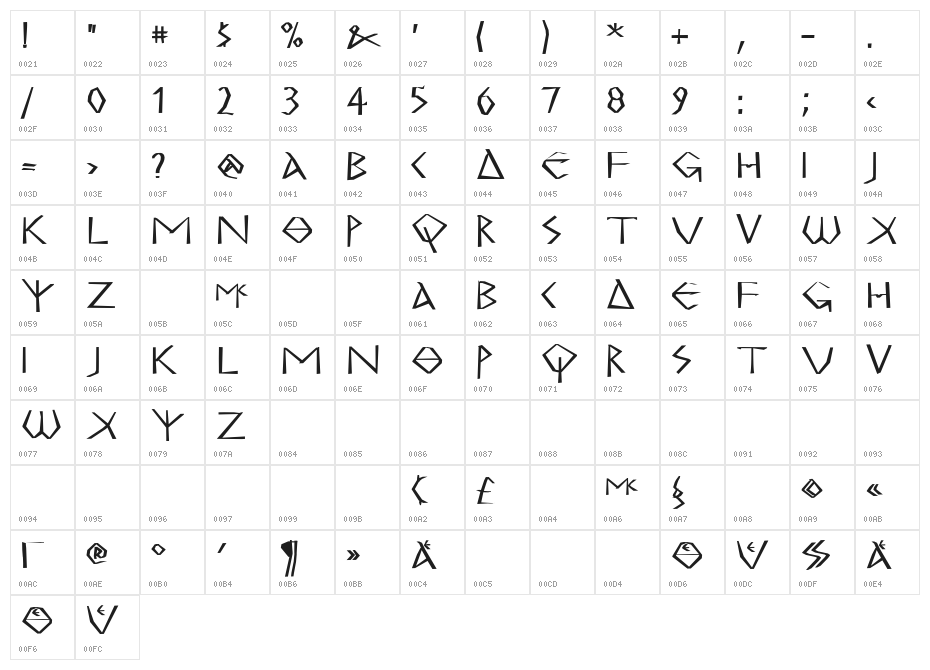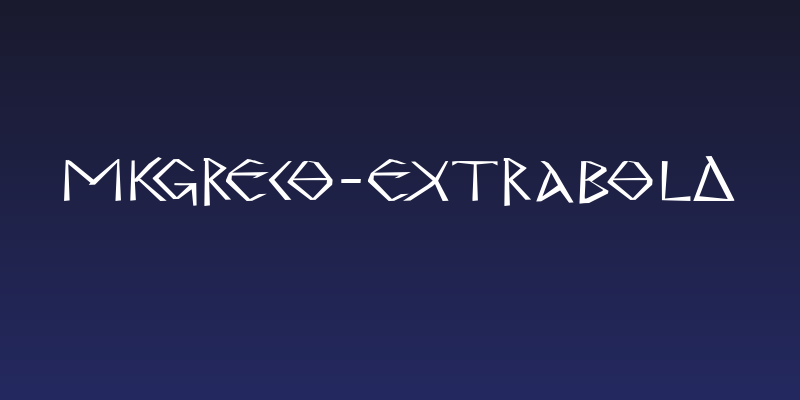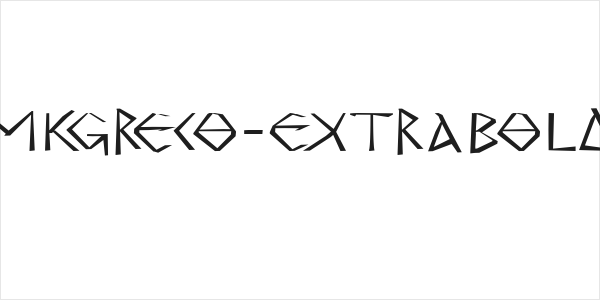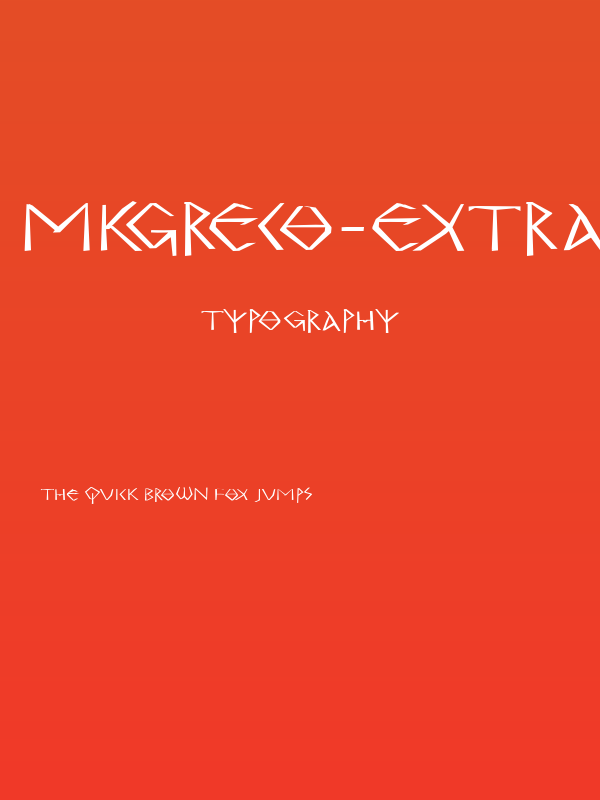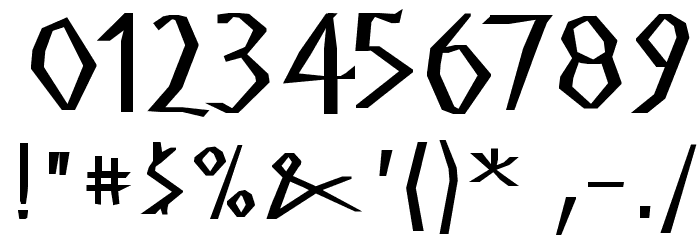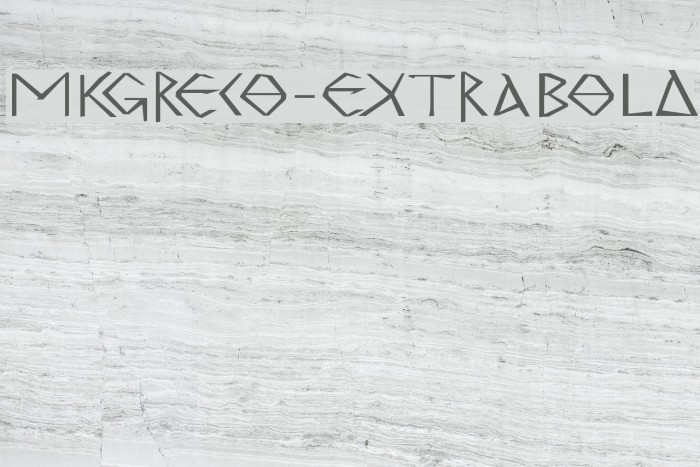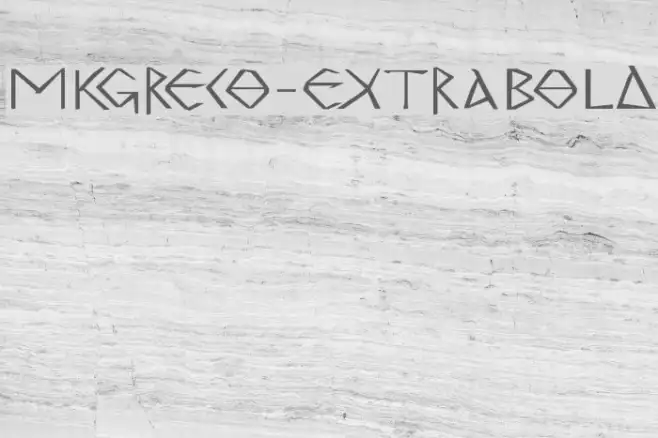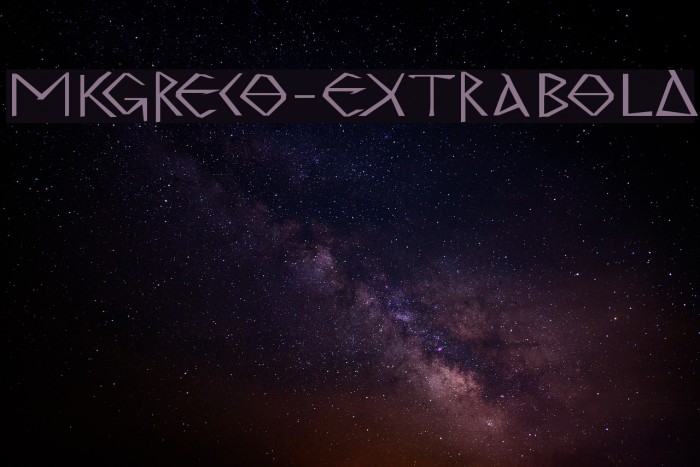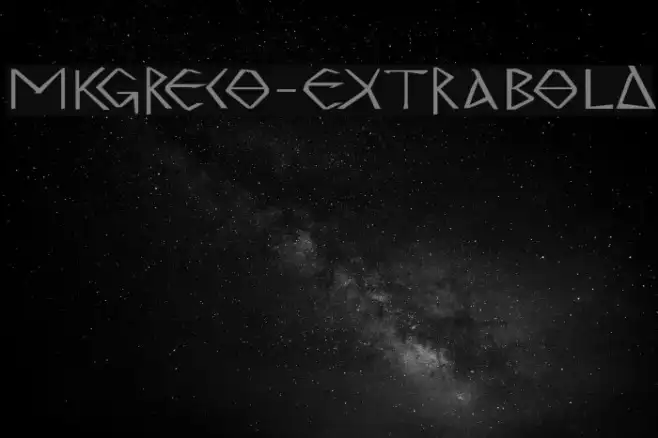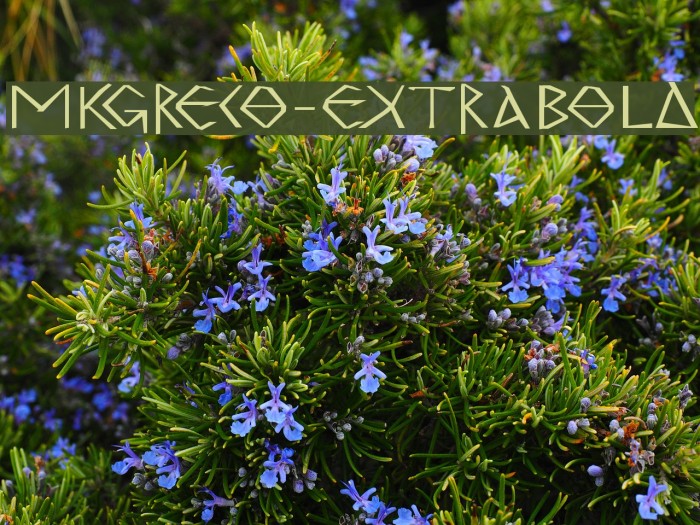
MKGreco-ExtraBold Font
MKGreco-ExtraBold Description
This font features a bold and angular design, reminiscent of ancient Greek inscriptions. The characters are constructed with sharp, geometric lines and triangular forms, giving it a distinct and striking appearance. The uppercase and lowercase letters maintain a consistent style, with a strong emphasis on diagonal strokes and pointed edges. The numerals and special characters follow the same design principles, ensuring uniformity across the typeface. This font's unique aesthetic makes it suitable for projects that require a historical or classical touch, while its boldness ensures visibility and impact.
| Proposed Projects | Ideal for historical-themed posters, logos, book covers, or any design requiring a classical or ancient aesthetic. |